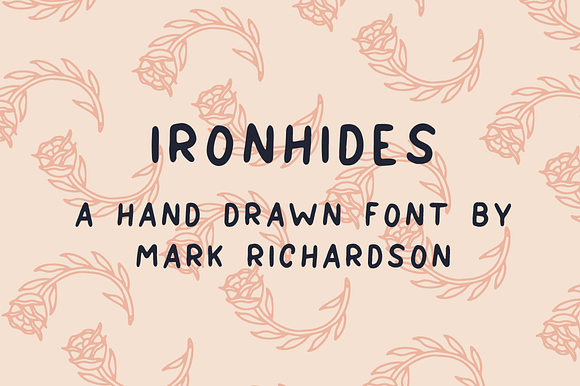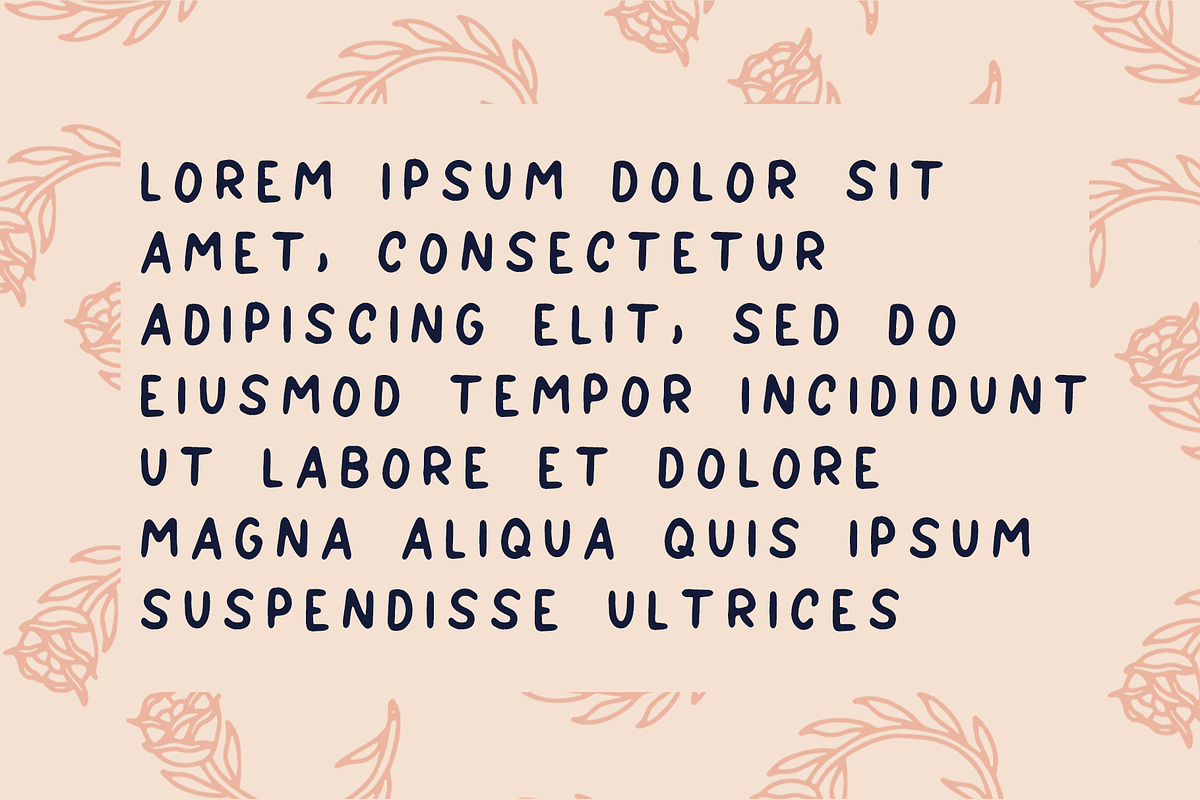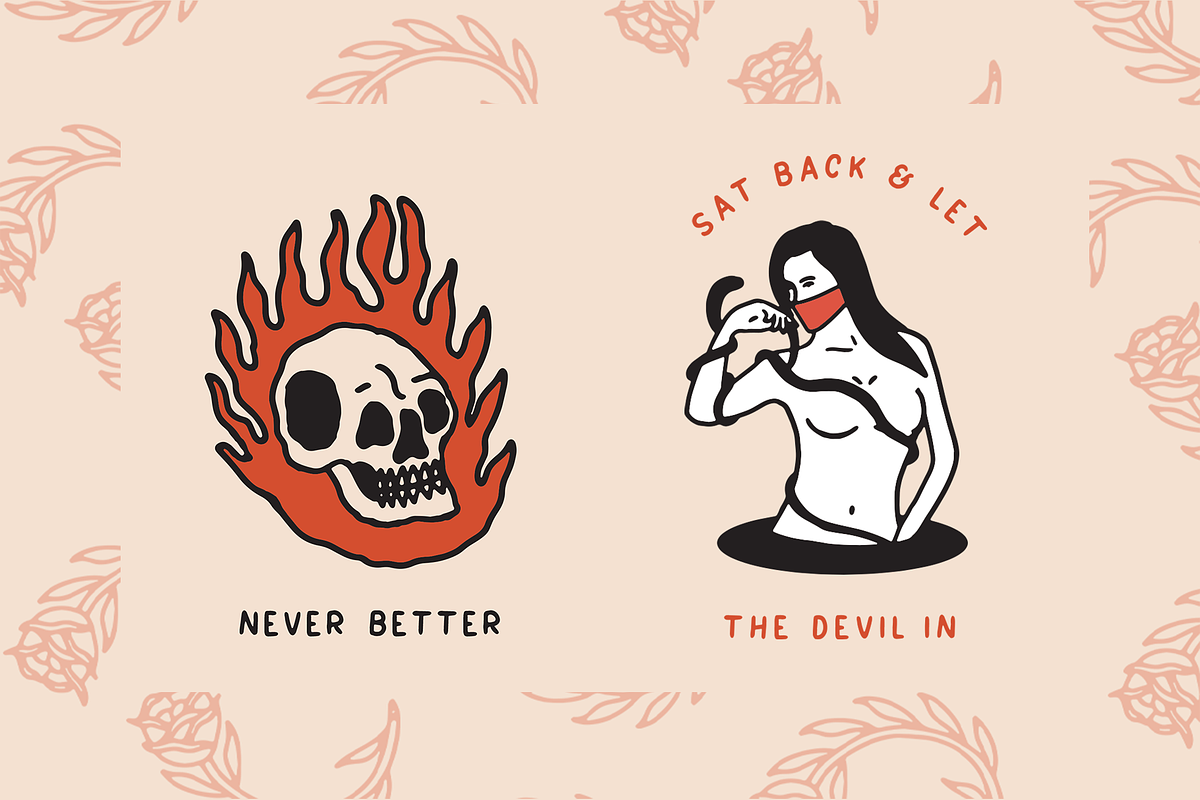
IRONHIDES - Hand Drawn Font
After many requests, I have finally decided to turn my hand lettering into a font!
This font is all caps and includes full numbers and punctuation. I'm more than happy to add additional characters and glyphs at request, so don't be shy and feel free to request something!
This font is great for complimenting illustrations (see my Instagram for many examples: and for logos and badges!